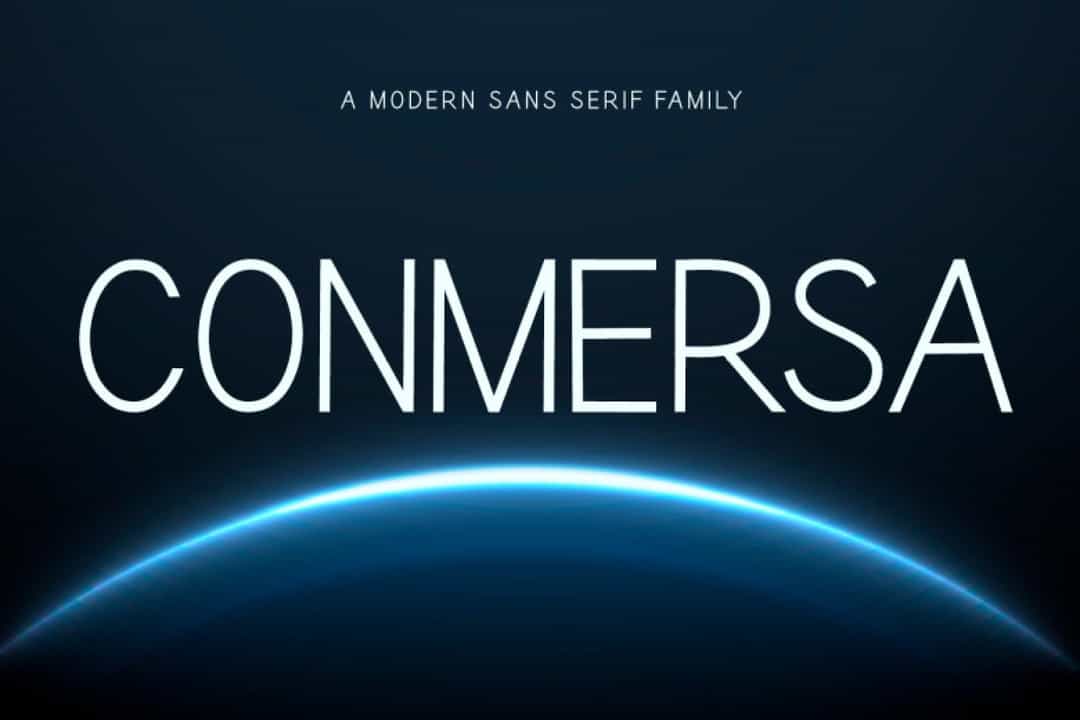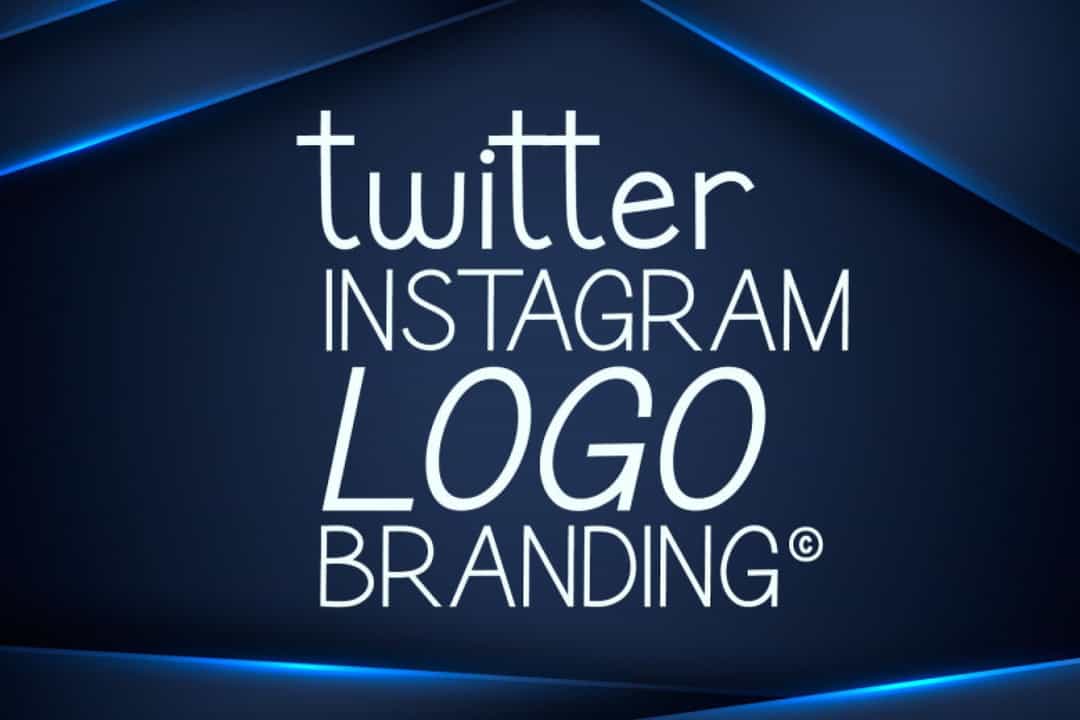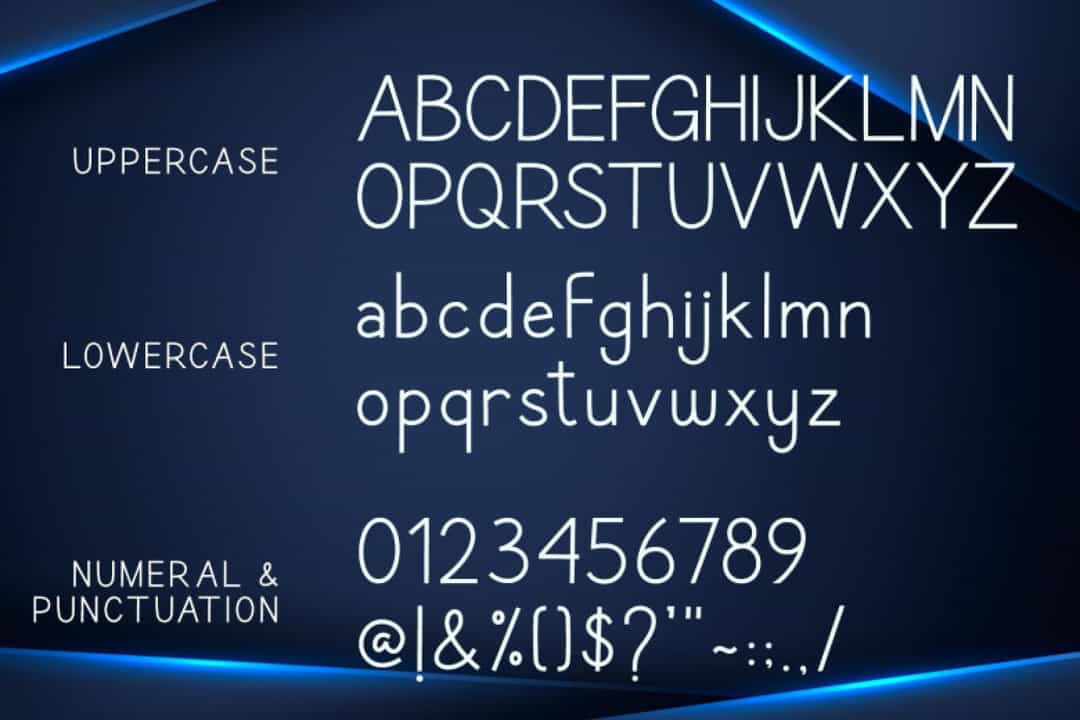
Discover Conmersa Font, part of the Sans Serif collection—a versatile and unique font perfect for adding a personal touch to your projects. Download it for free and enjoy crafting designs with style, from invitations to social media posts. This font is available exclusively for personal use, giving you the freedom to create without limits. Unlock your creativity with Conmersa Font today!
Conmersa is an elegant Sans Serif font. You’ll find it useful across multiple designs; add it into your plans to see them flourish!